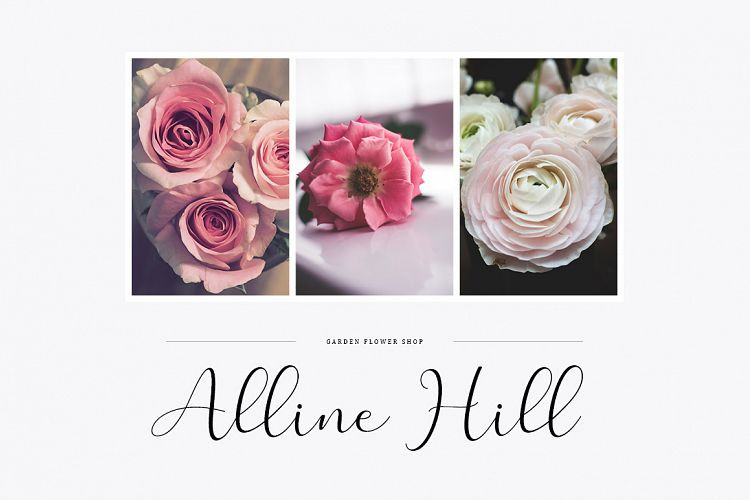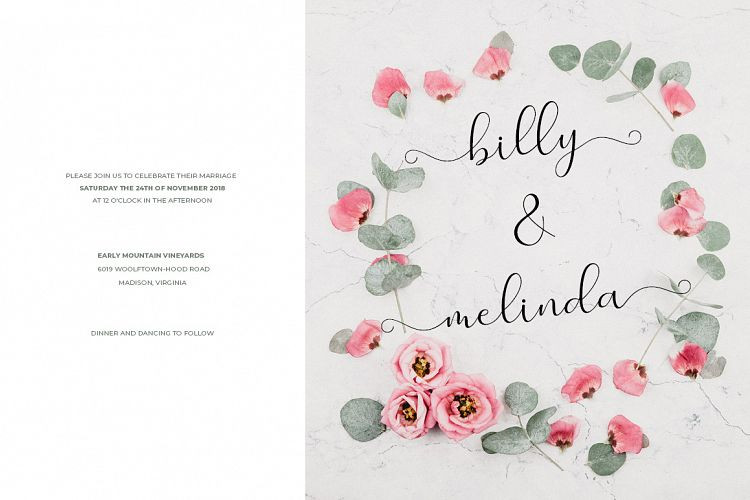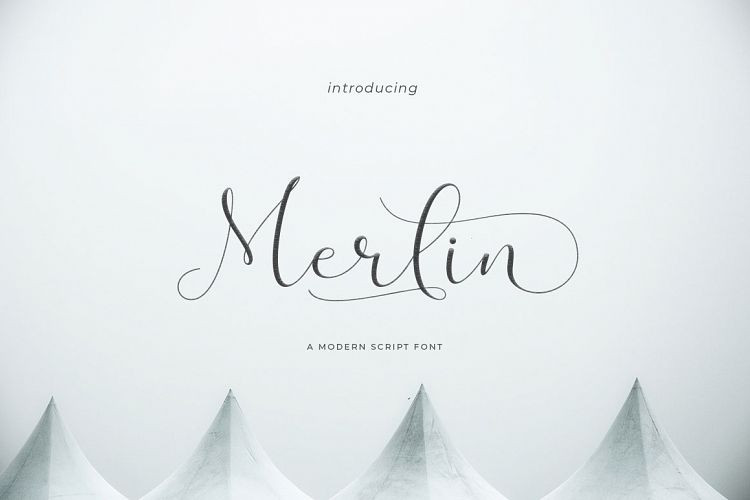
Merlin Script Font
Merlin Script Font – Free Demo
If you are looking for letters with style, handwritten, not perfect but with personality, This is the perfect font. Introducing Merlin Font. Merlin Script Font is a unique blend of classic and modern font. imperfect style ups and downs, like a dance letters, smooth, clean and simple. Perfect for wedding, event, invitation, escort card, table number, header menus, display, logos, slider blog, custom address, stamps, packaging, greeting card, etc.